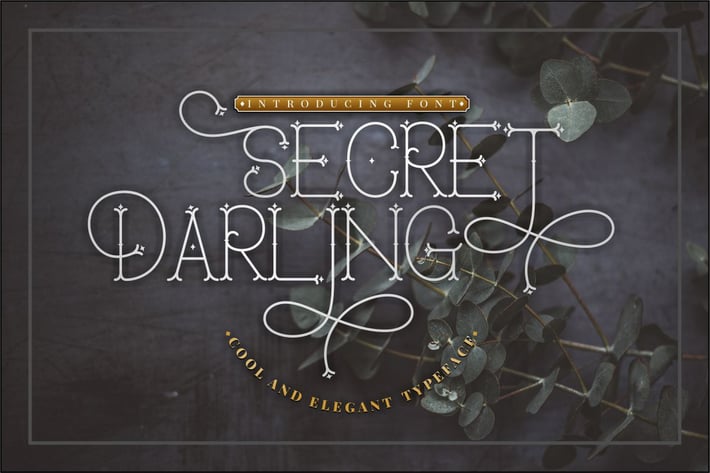
Secret Darling - Classic Monoline Font
Secret Darling
Introducing, Secret Darling! a classic monoline typeface.
You can use this font for making an awesome lettering, branding, letterhead, invitations,quote, print, card clothing brand, vintage looks,and so much more!.
Come with open type feature with a lot of alternates, its help you to make great lettering.
Comes with feature :
Alternate
* Number, Punctuation And Symbols